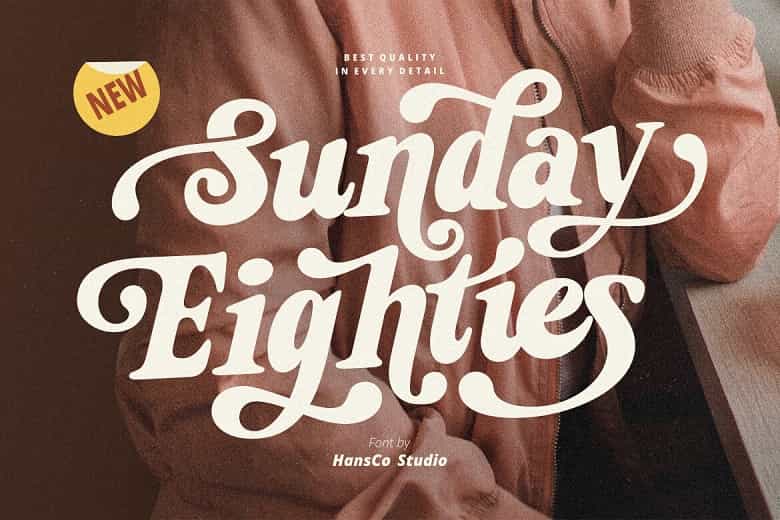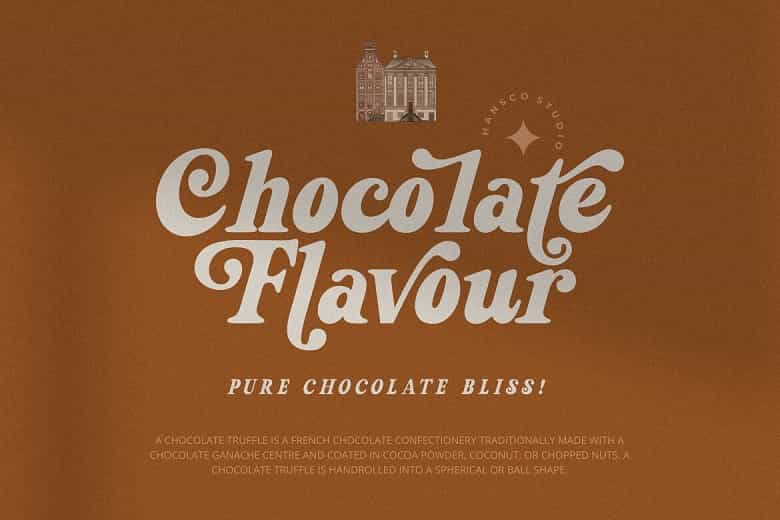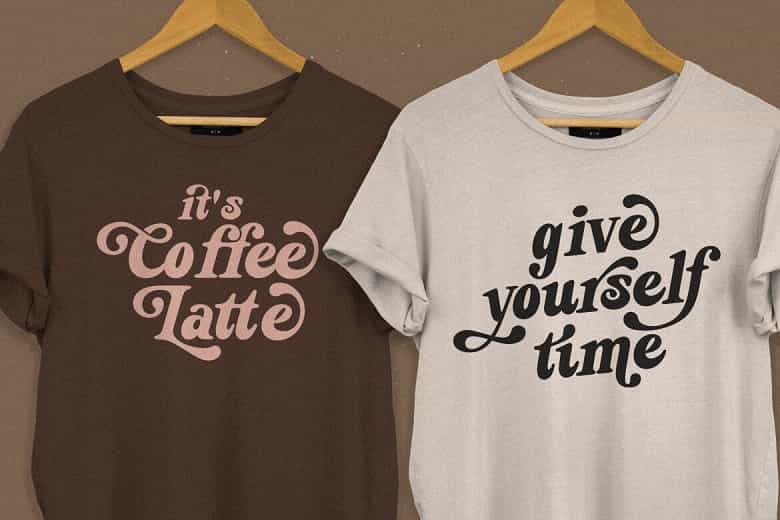
Sunday Eighties is a minimalist and strong vintage serif font style. You will also find additional alternative swash character fonts that will help you make your design projects incredible. This display font will surely give a unique retro vintage look and feel to any design that you have in mind! This font has all the complete characters including the uppercase and lowercase letters, numbers, punctuation marks, and multi-lingual support making it versatile for any project.